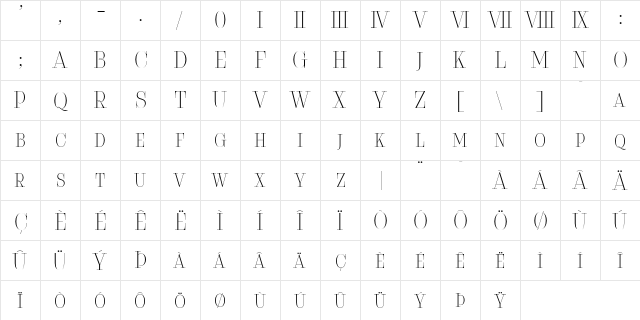
Serifiqo 4F Free Capitals
| Foundry | Sergiy S. Tkachenko |
| Designer | Sergiy S. Tkachenko |
Design Context for Serifiqo 4F Typeface
Serifiqo 4F carries the refined structure of traditional serif typography, with bracketed terminals and considered proportions that communicate credibility and craft.